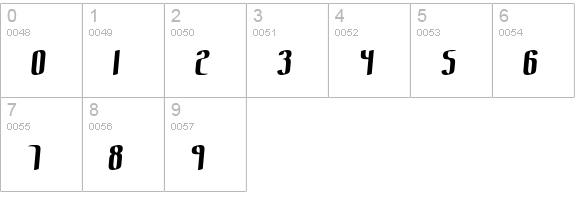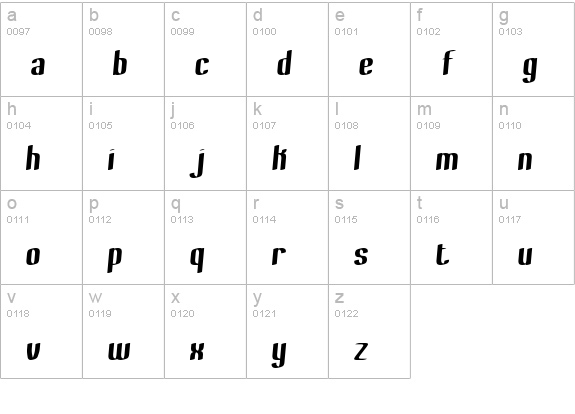
Bewilder Thick BRK Font Details
Bewilder Thick BRK font is a bold and eye-catching typeface that is perfect for making a statement in your designs. The thick, chunky letters give off a sense of strength and confidence, making it ideal for headlines, posters, and other display purposes. This font exudes a sense of modernity and creativity, making it a versatile choice for a variety of projects. And the best part? Bewilder Thick BRK font is completely free to download at FontsMarket.com. Whether you're a designer looking to add a unique touch to your creations or a business owner in need of a standout logo, this font is sure to impress. Don't miss out on the opportunity to enhance your designs with this free and stylish typeface. Download Bewilder Thick BRK font today and let your creativity shine!